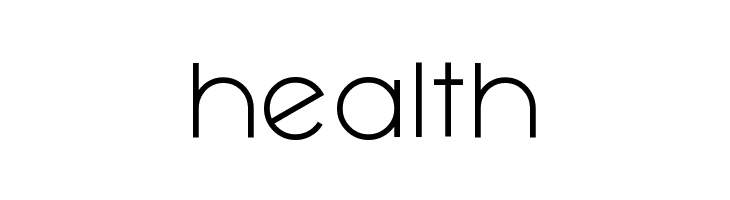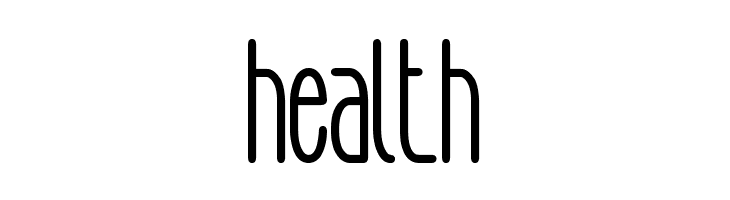
A clean, modern font with a minimalist design and consistent stroke thickness.
A modern sans-serif font with clean lines and uniform stroke thickness.
A clean, modern typeface with balanced spacing and consistent stroke thickness.
A bold, modern font with thick strokes and uniform width, ideal for headlines.
A clean, modern, semi-condensed font with consistent stroke thickness and balanced spacing.
A playful, modern font with tall, narrow letters and consistent stroke thickness.